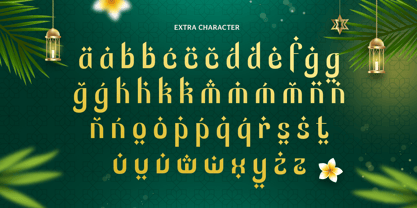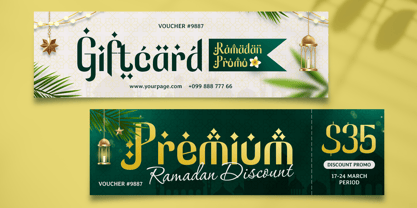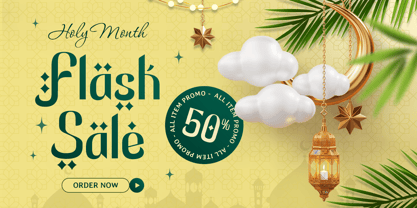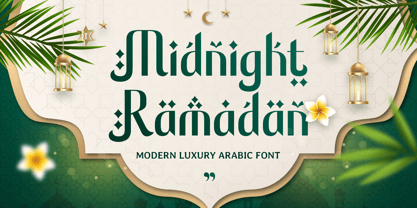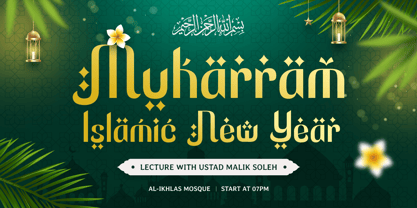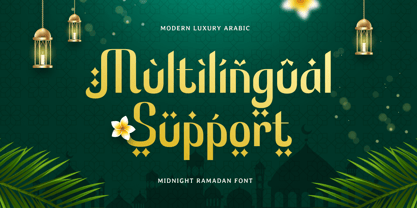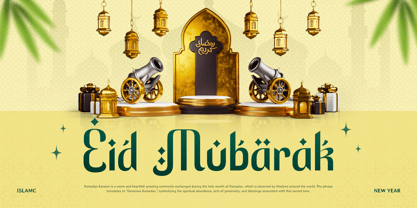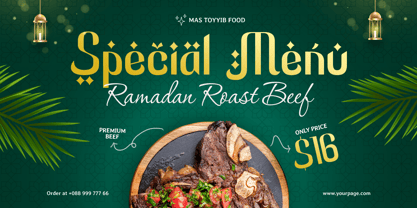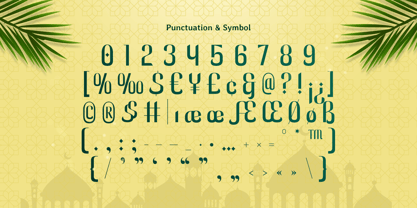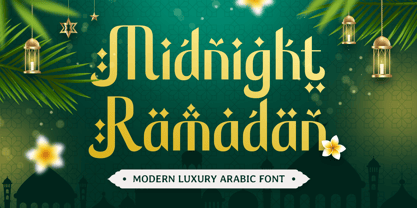
Midnight Ramadan - Modern Luxury Arabic Font
Midnight Ramadan is a meticulously designed Arabic font that brings a sense of refinement and festivity to your creative projects. With its sleek lines and luxurious appeal, it’s perfect for Ramadan-themed branding, greeting cards, event invitations, and digital content. This font effortlessly bridges the gap between traditional Arabic calligraphy and contemporary design aesthetics.
Inspired by the tranquil and spiritual nights of Ramadan, Midnight Ramadan conveys a sense of peace, elegance, and modernity. Whether you’re creating digital banners, high-end product packaging, or social media campaigns, this font ensures your designs captivate audiences with its timeless charm and distinctive style.
Unlock the potential of your Ramadan projects with Midnight Ramadan, a font designed to evoke emotion and elegance. Its versatility makes it an excellent choice for designers seeking a premium Arabic font that stands out in any medium.
Midnight Ramadan Modern Luxury Arabic Font Features:
Elegant and Luxurious Arabic Typography
Punctuation, Numbers, and Symbols
Uppercase and Lowercase
Opentype Features